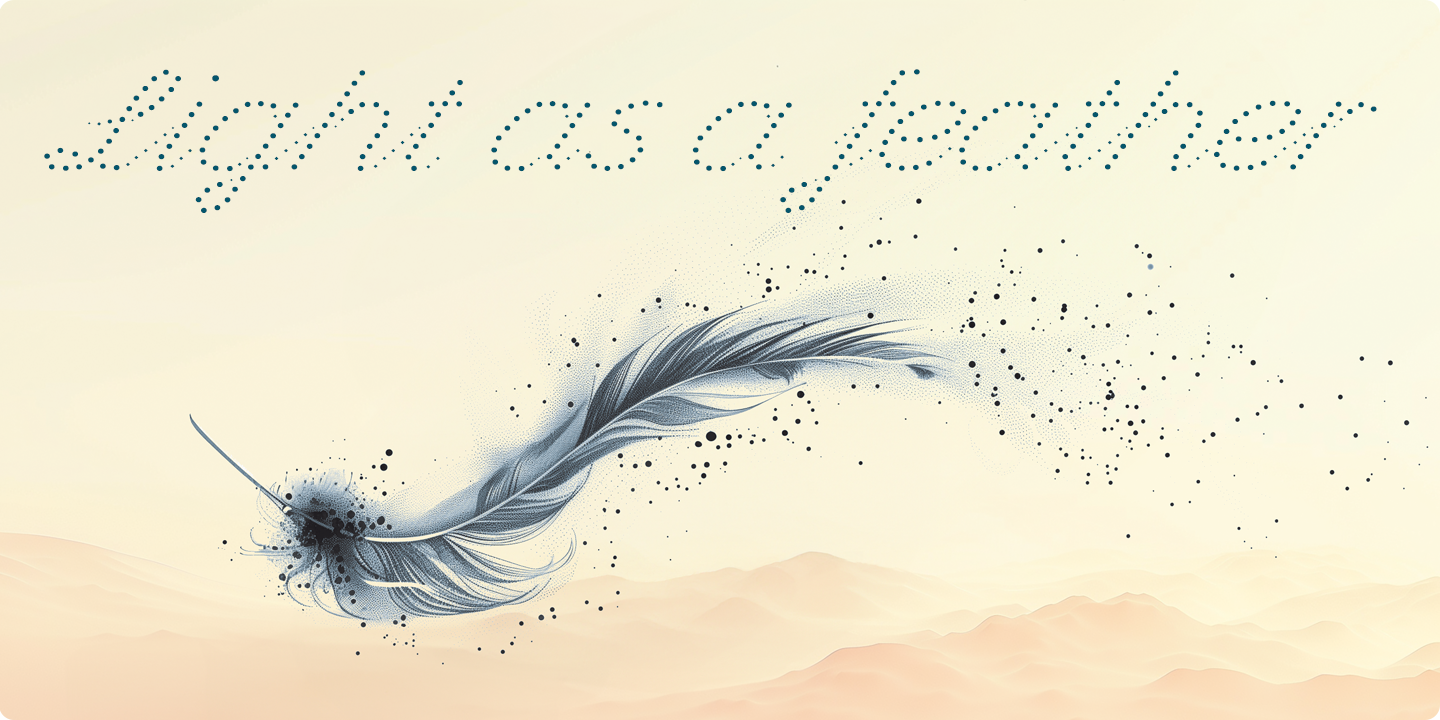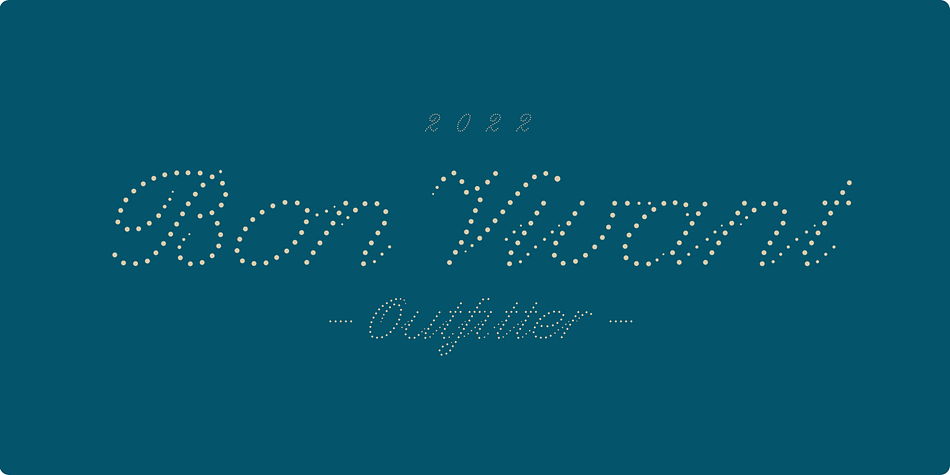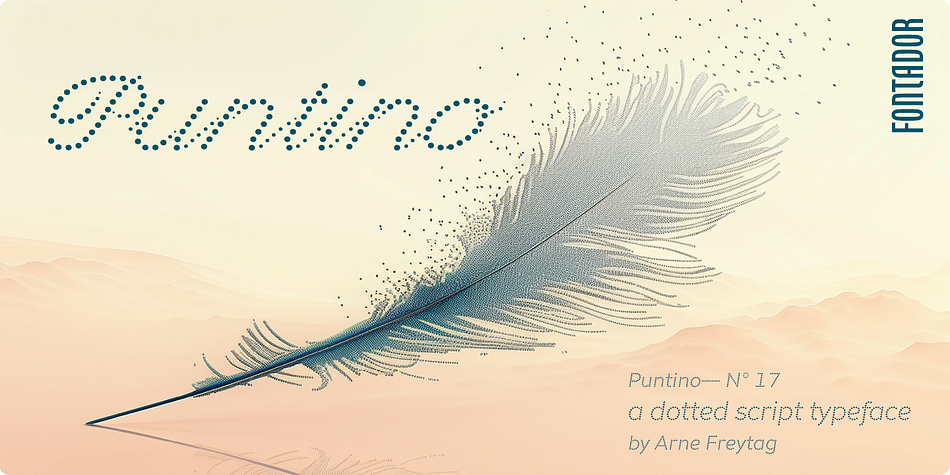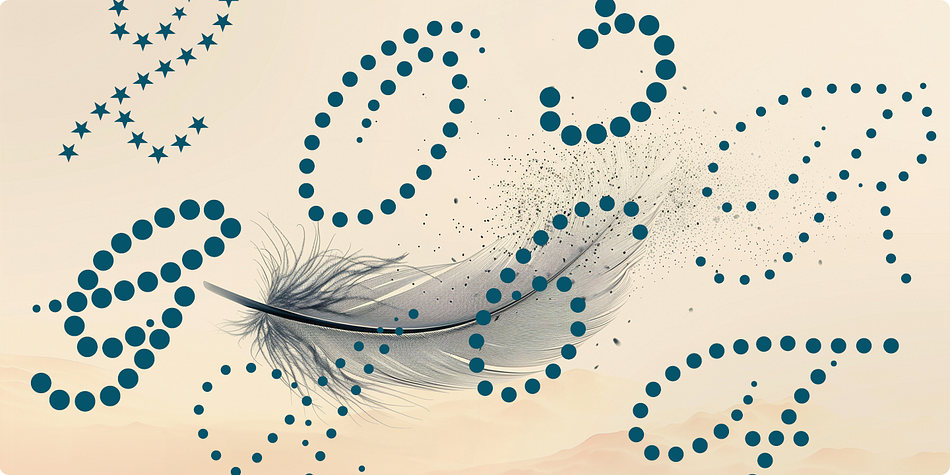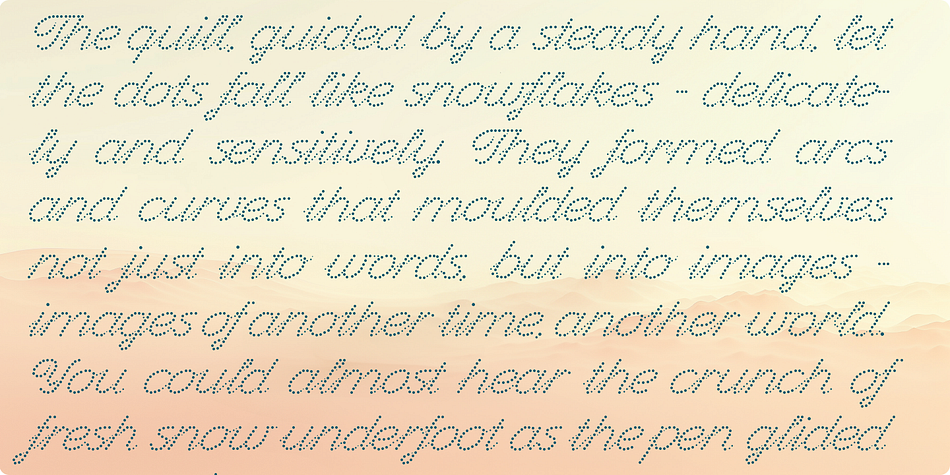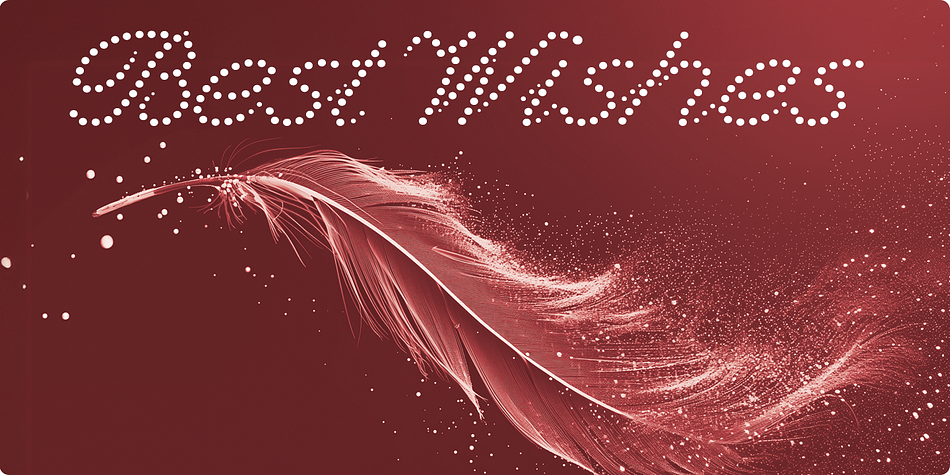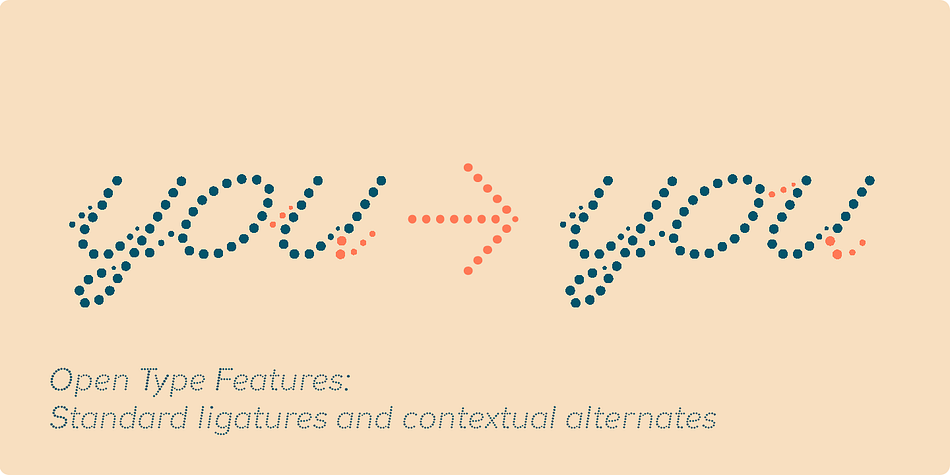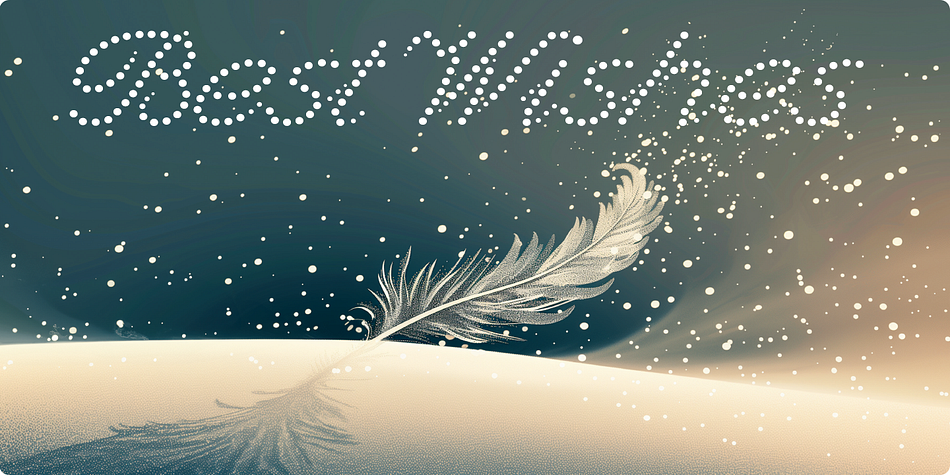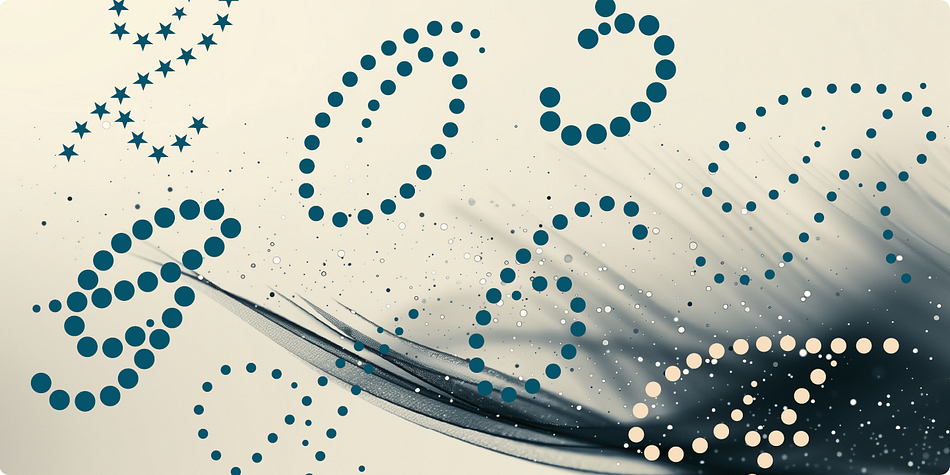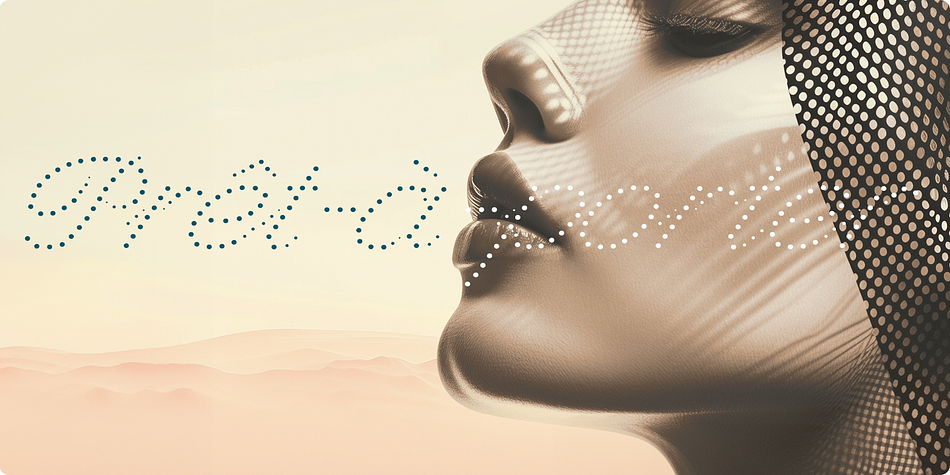
Puntino
Designed by Arne Freytag, Puntino is a novelty font family. This typeface has four styles and was published by Fontador.
A dotted script typeface
Puntino is (maybe the first) dotted script typeface and not made up of grid-based dots. They are optical corrected and there is always the same distance between the dots, with the aim to create more harmonic letterforms.
The dots also vary gradually in size to reflect the thickening and thinning of strokes, giving the letterforms a sophisticated overall look.
Puntino comes up with 4 styles and is perfectly suited for logos, brands, congratulation cards …
The language support includes Western, Central and Eastern European character sets, as well as Baltic and Turkish languages.
OPEN TYPE FEATURES: Standard ligatures and contextual alternates should be activated.